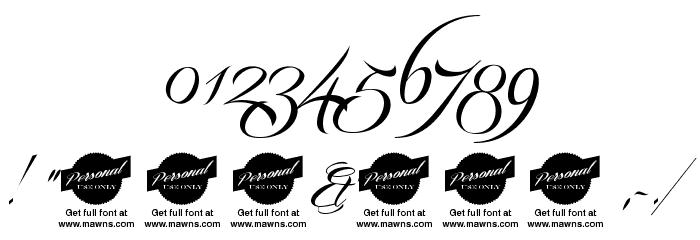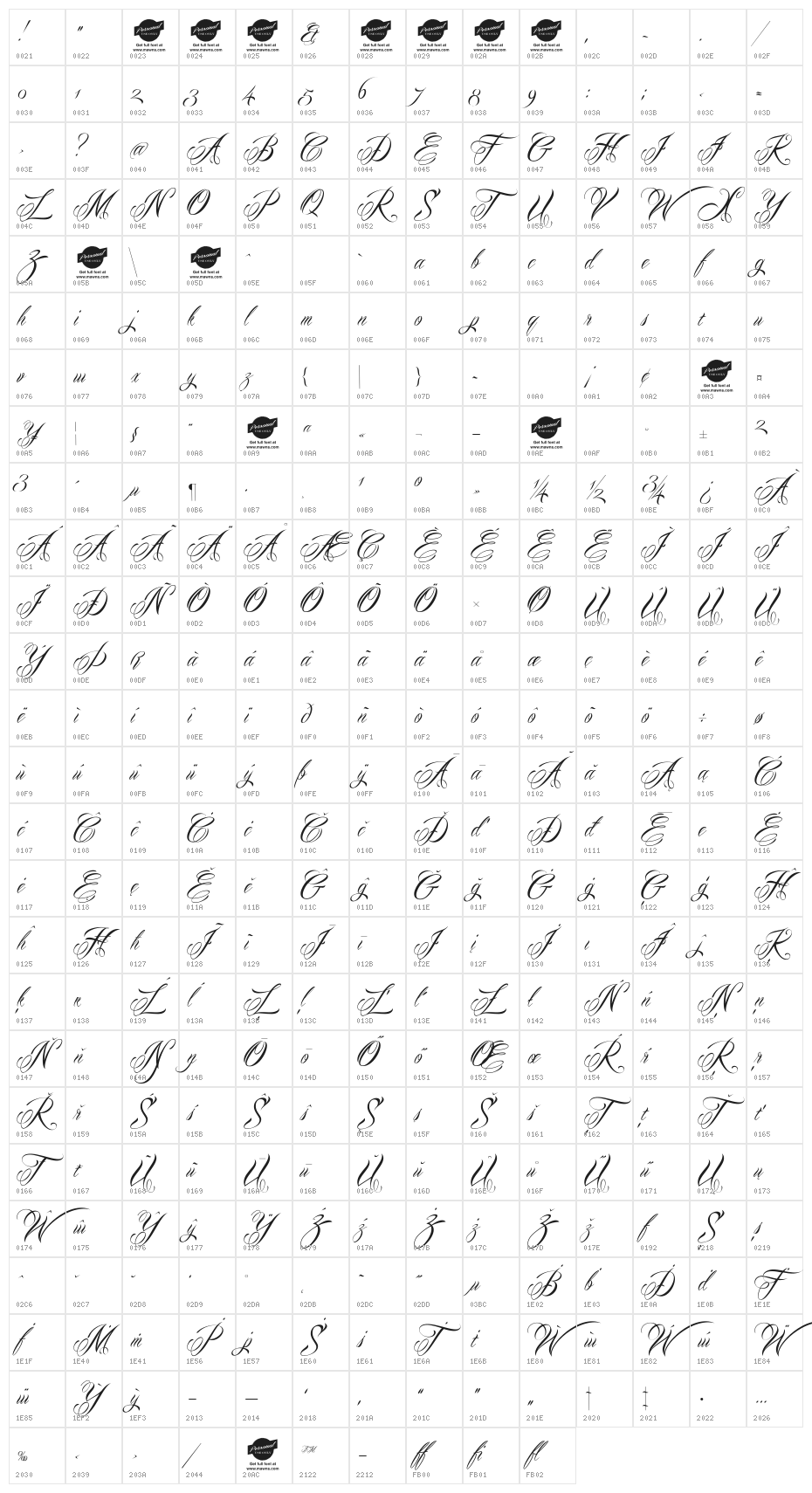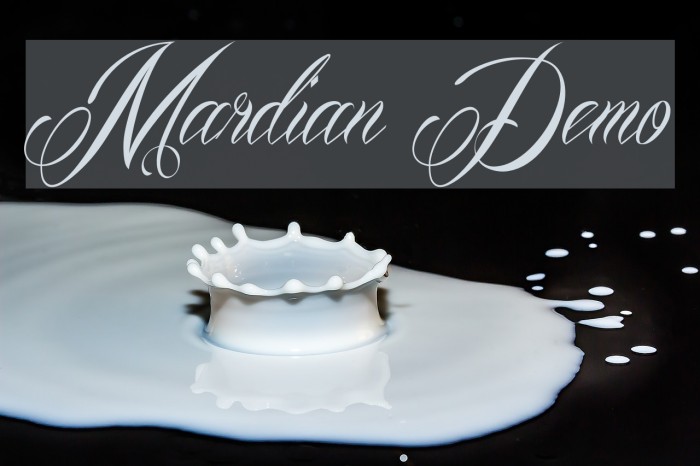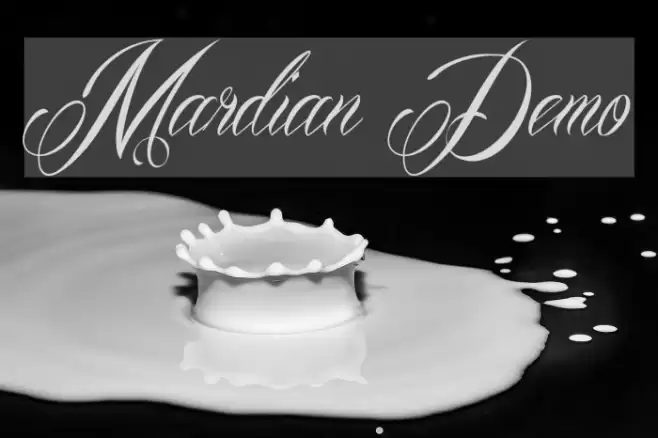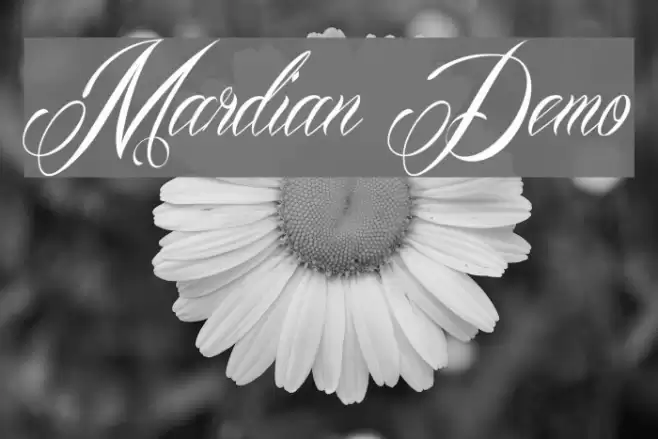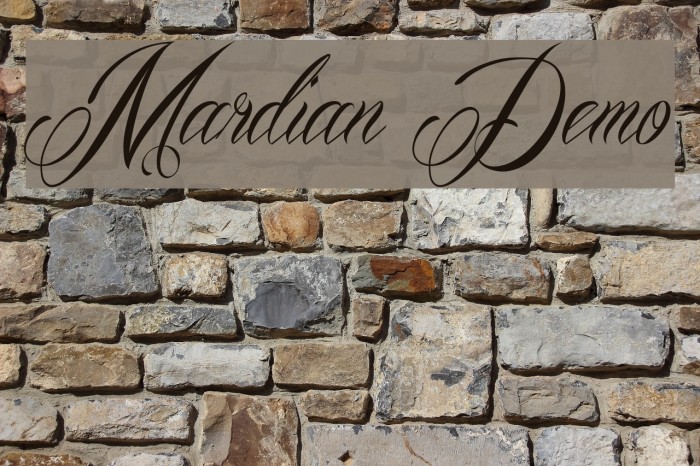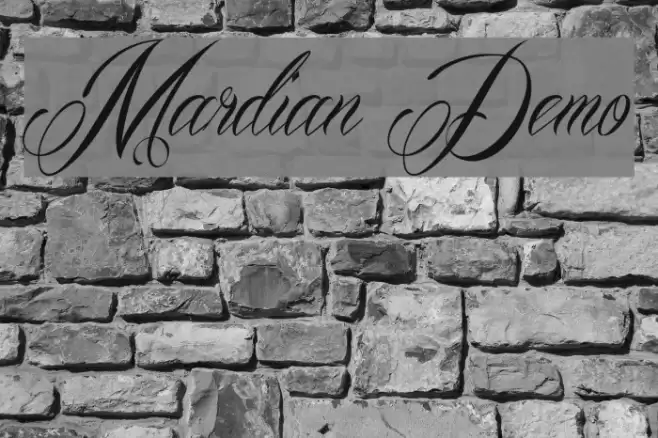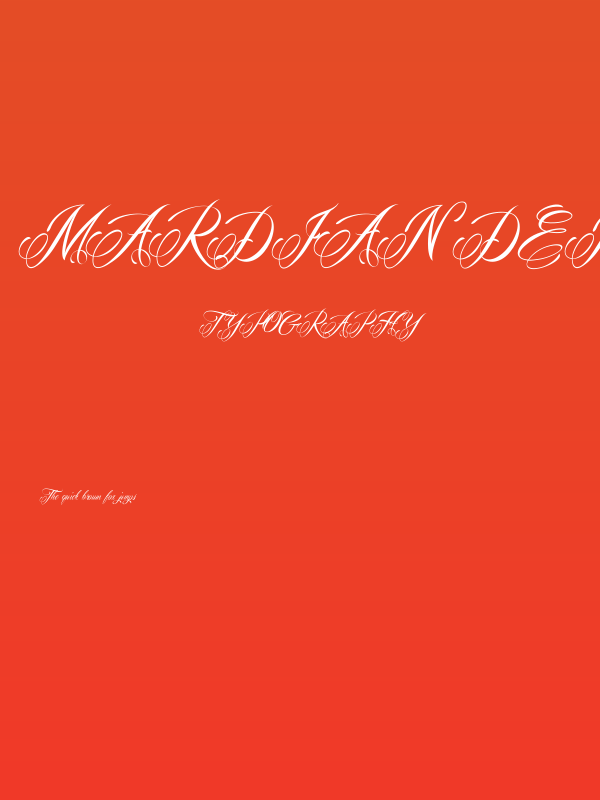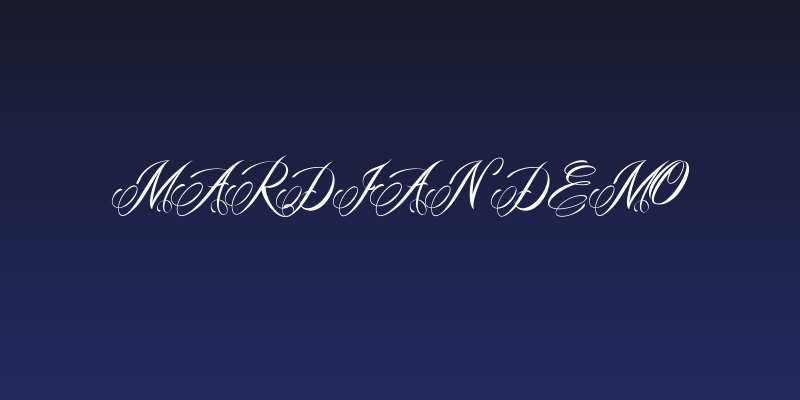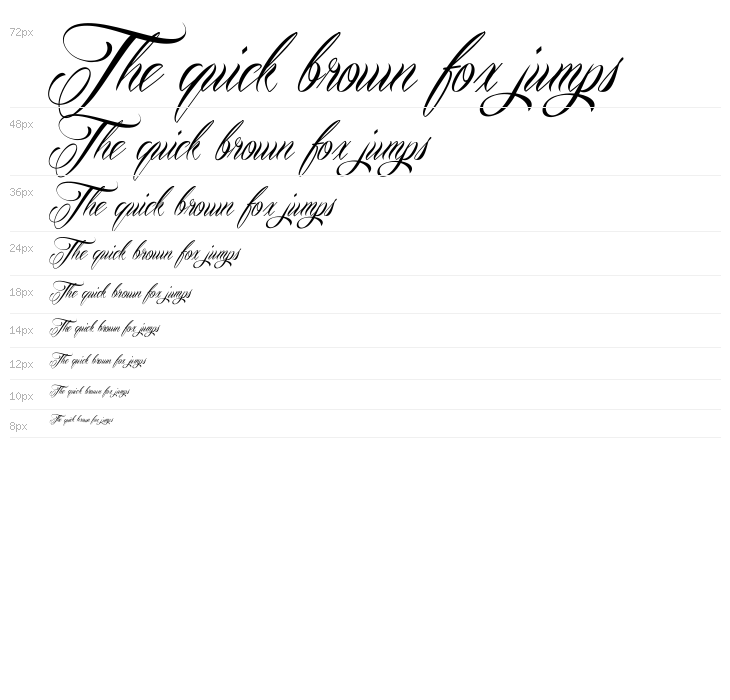
Mardian Demo Font
Mardian Demo Description
This elegant script font features intricate, flowing lines and a sophisticated style. Each character is adorned with delicate swirls and flourishes, creating a sense of movement and grace. The uppercase letters are particularly ornate, with loops and curves that extend beyond the baseline, while the lowercase letters maintain a more restrained elegance. The numerals and special characters are equally stylized, ensuring a cohesive look across all text. This font is perfect for adding a touch of luxury and refinement to any project.